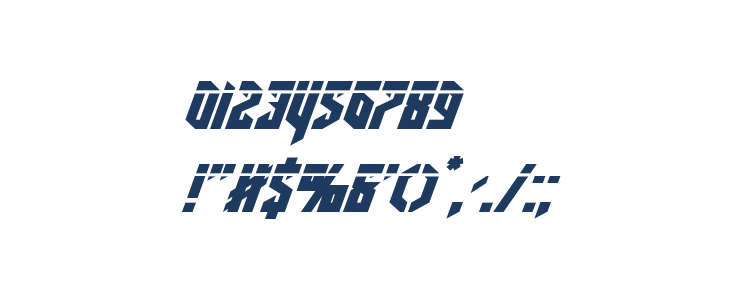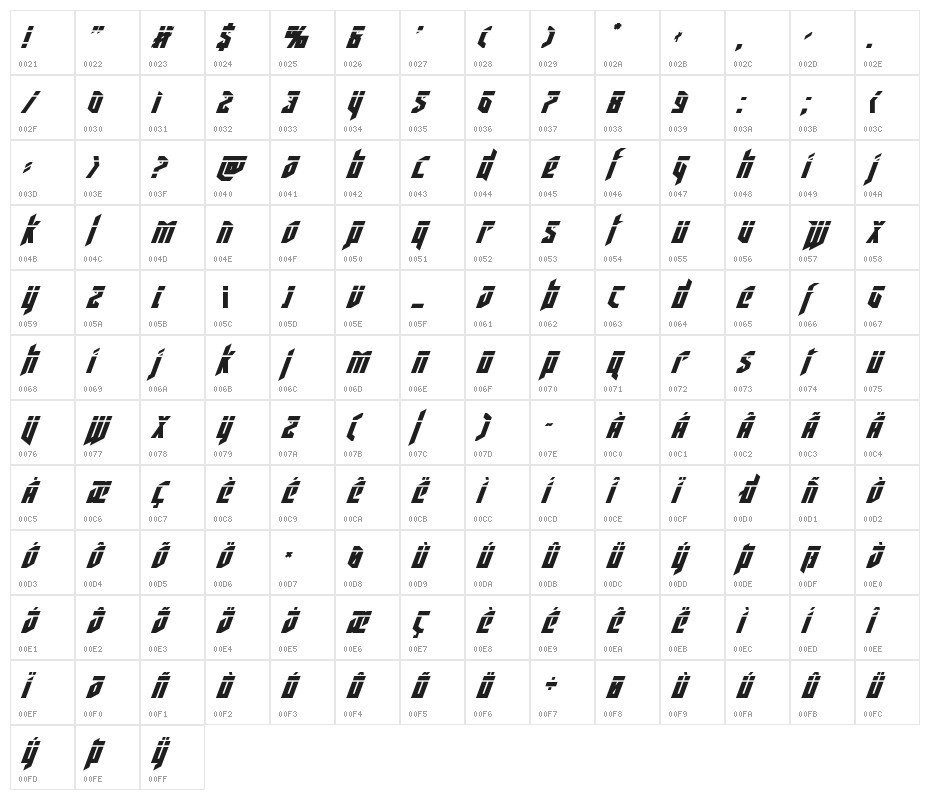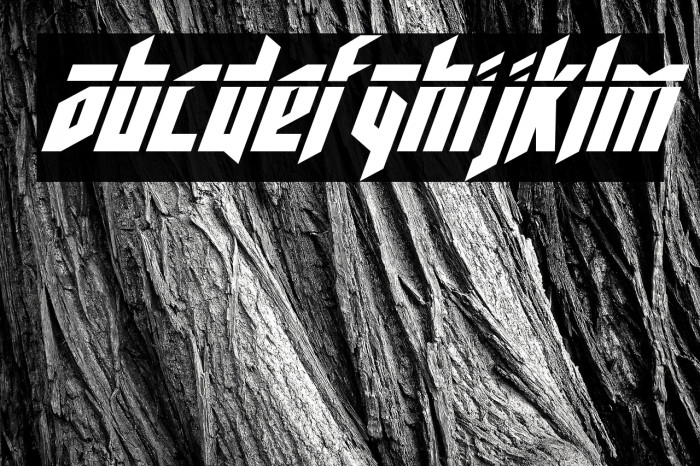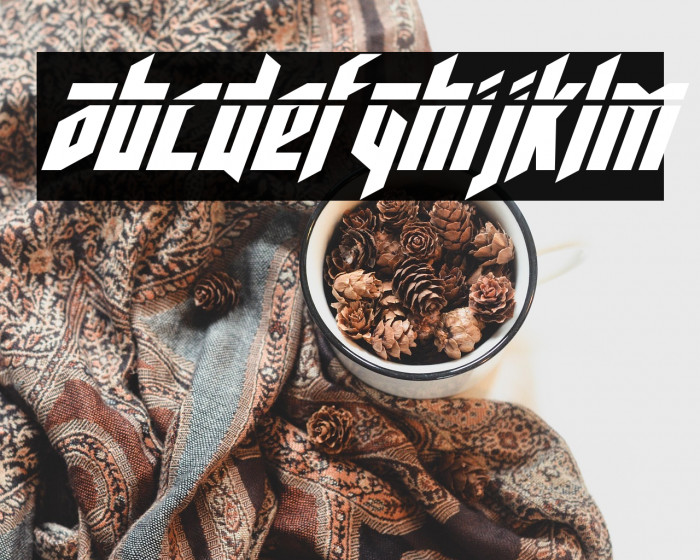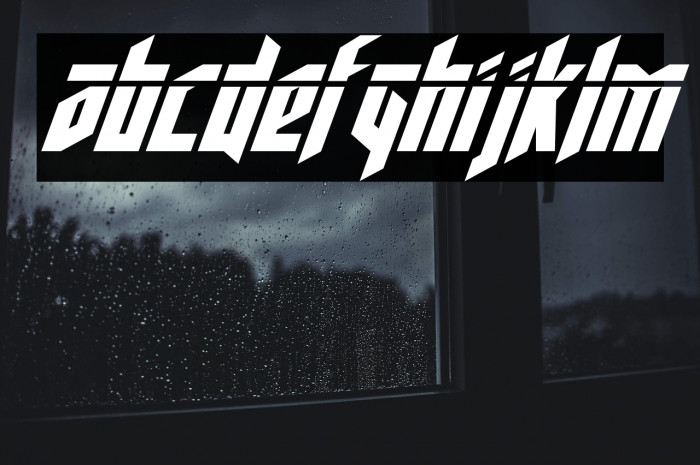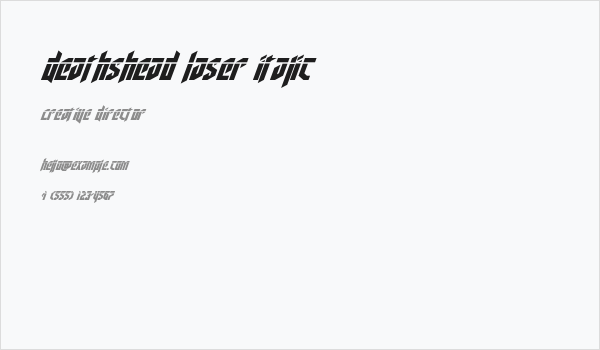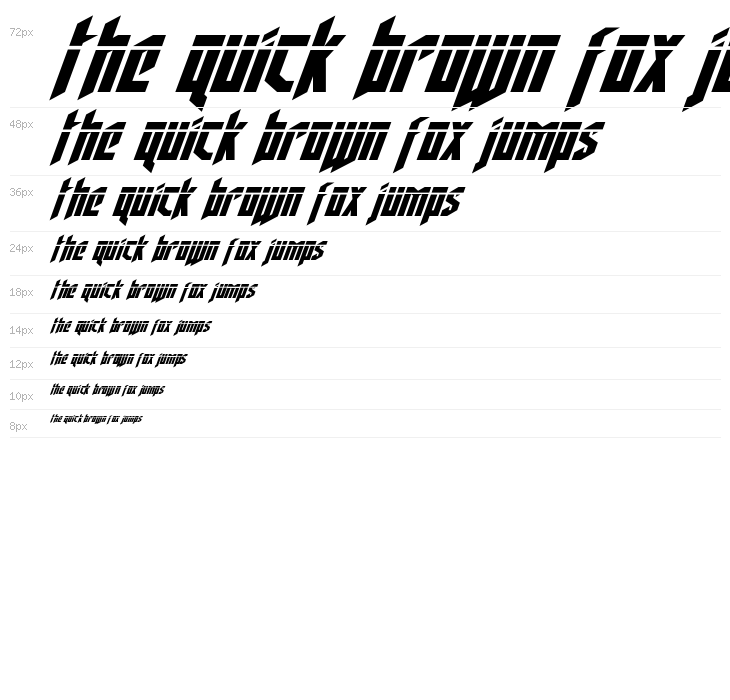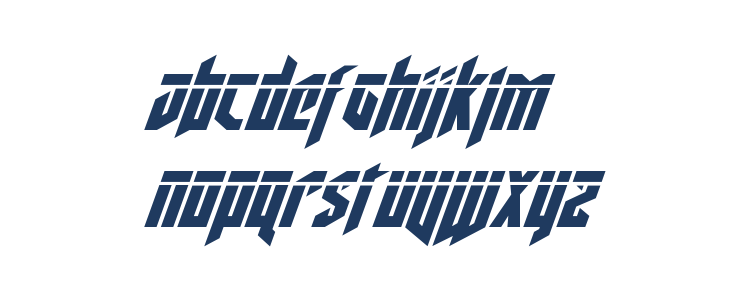
Deathshead Laser Italic Font
Deathshead Laser Italic Description
This font features a bold, angular design with a futuristic and aggressive aesthetic. The characters are sharply cut with a distinct slant, giving it a dynamic and energetic feel. The uppercase and lowercase letters maintain a consistent style, with exaggerated angles and a strong presence. The numerals and special characters follow the same bold and angular theme, ensuring a cohesive look across all glyphs. This font's unique style makes it stand out, perfect for projects that require a modern and edgy appearance.
| Proposed Projects | Ideal for sci-fi themed designs, video game graphics, posters, and branding that requires a modern, edgy look. |